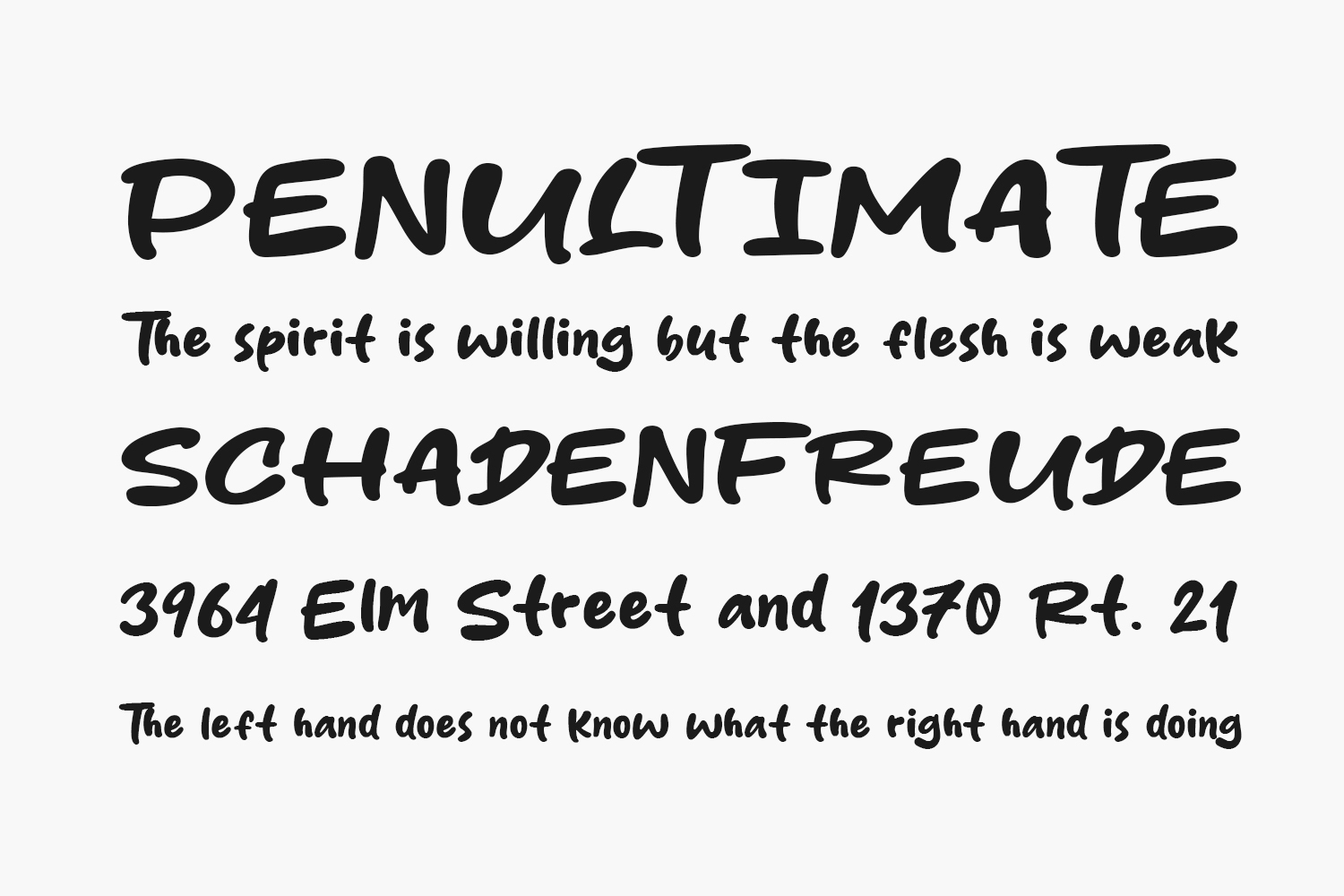
Dacherry Free Font is a remarkable display font that exudes modernity and a touch of elegance. This versatile typeface is a perfect choice for various design projects, including posters, logos, magazines, book covers, banners, and more. Embrace the charm of this amazing font and unlock the potential to create stunning designs. With its seamless adaptability to a wide range of projects, Dacherry effortlessly elevates your creative ideas, making them truly outstanding. Dacherry Free Font is free for personal or commercial use.